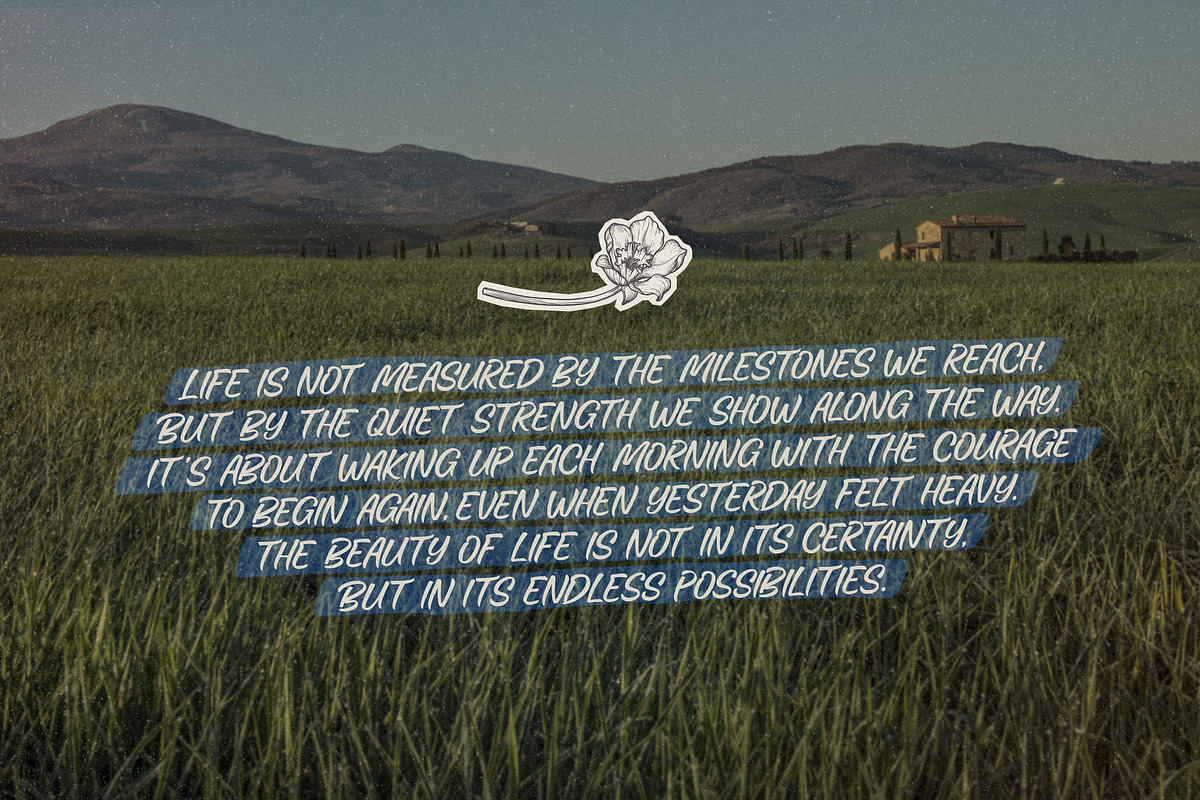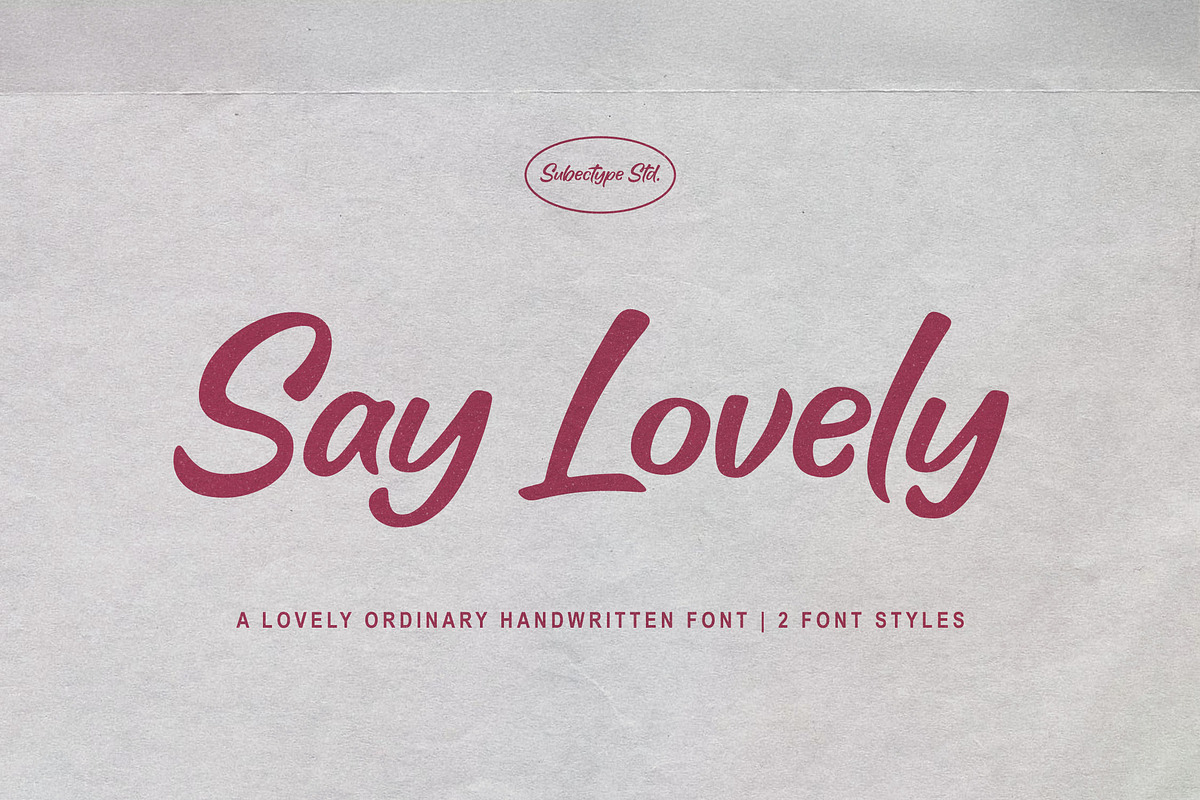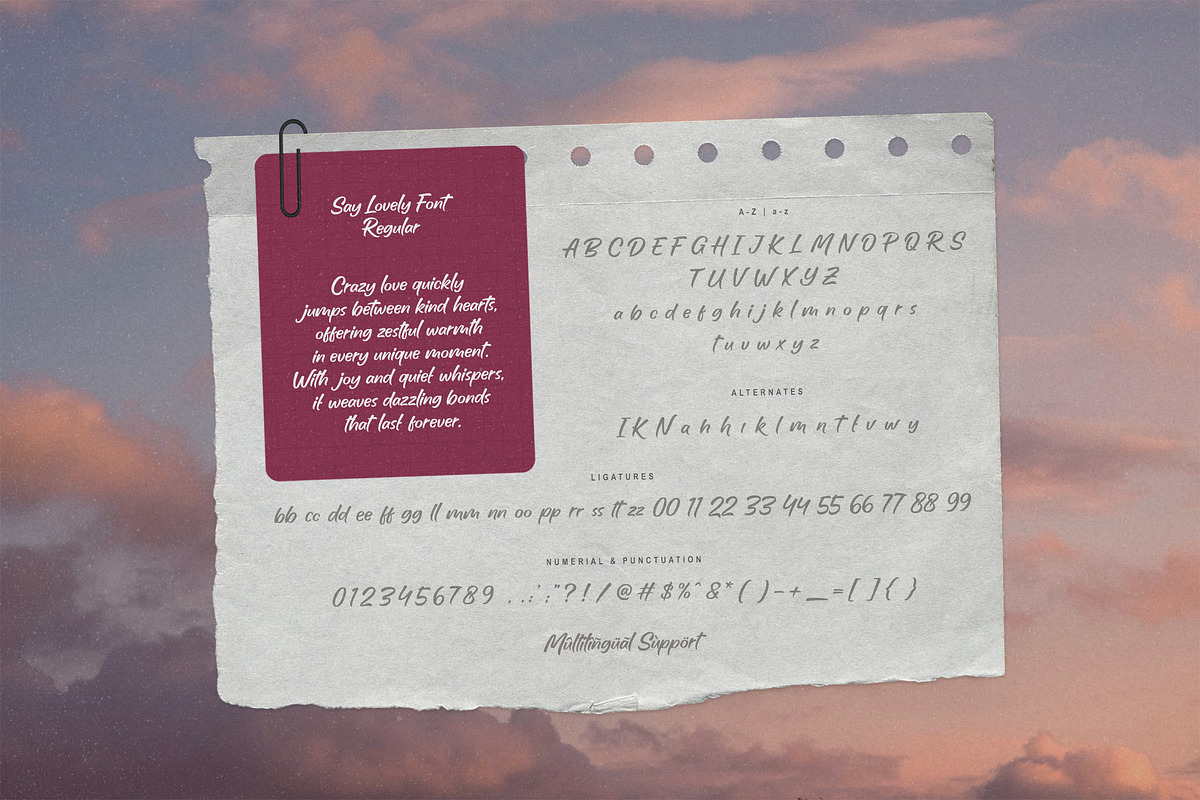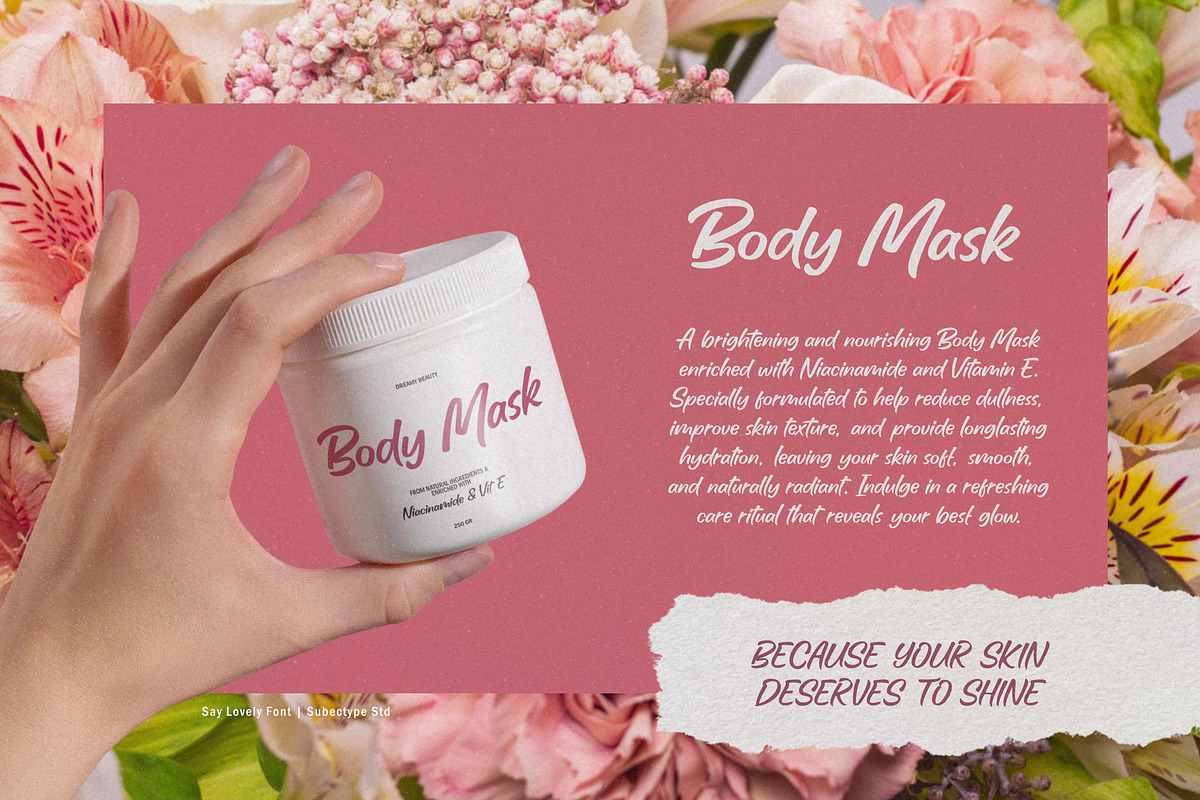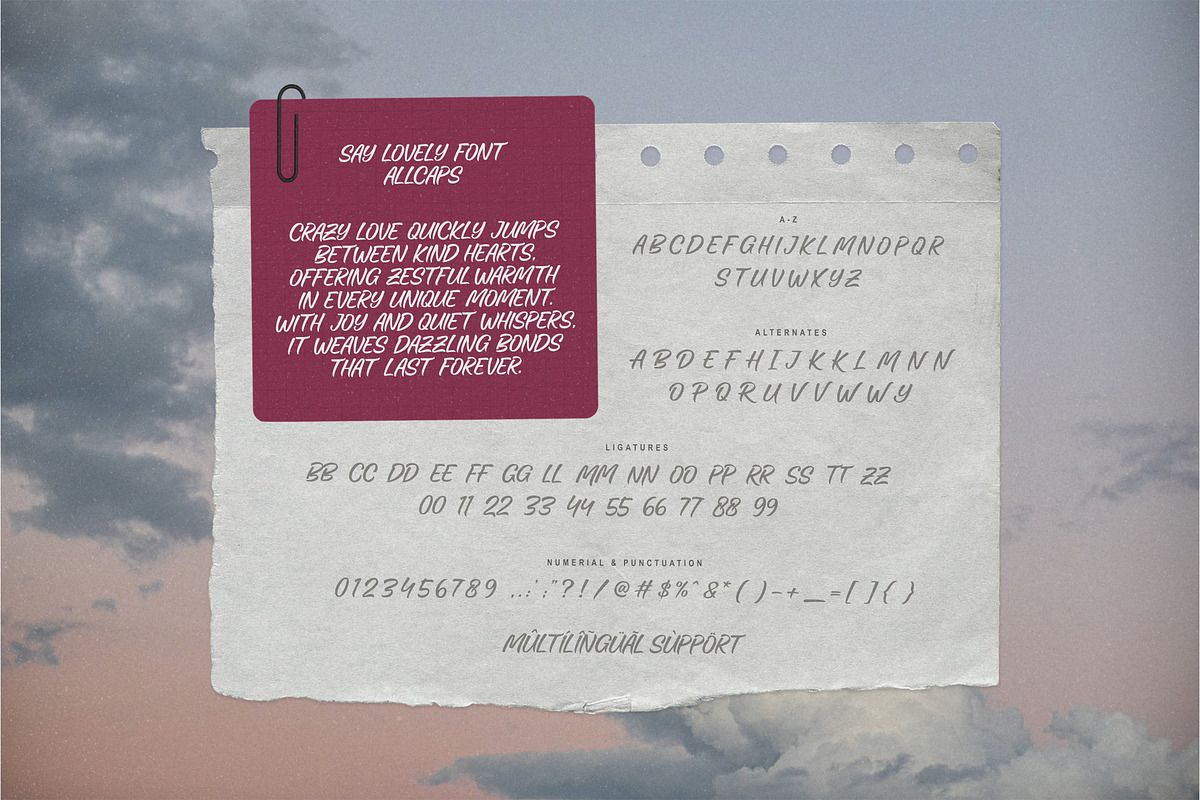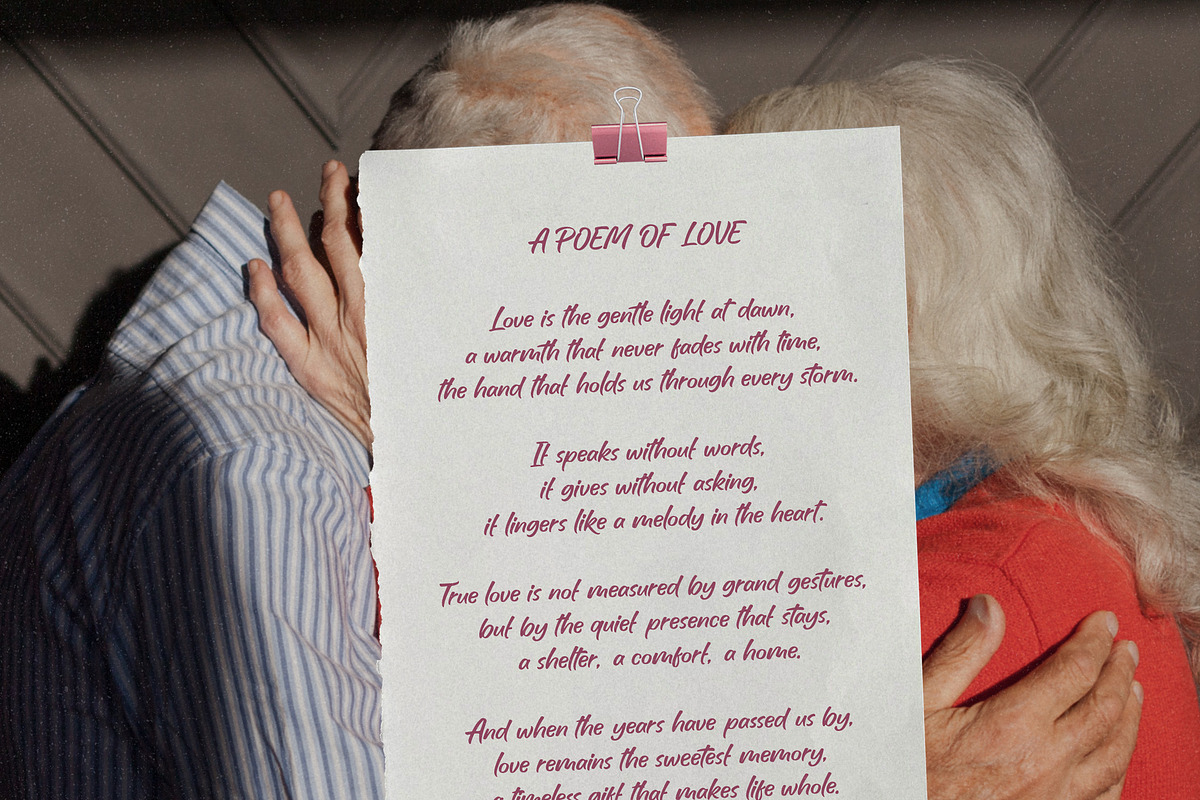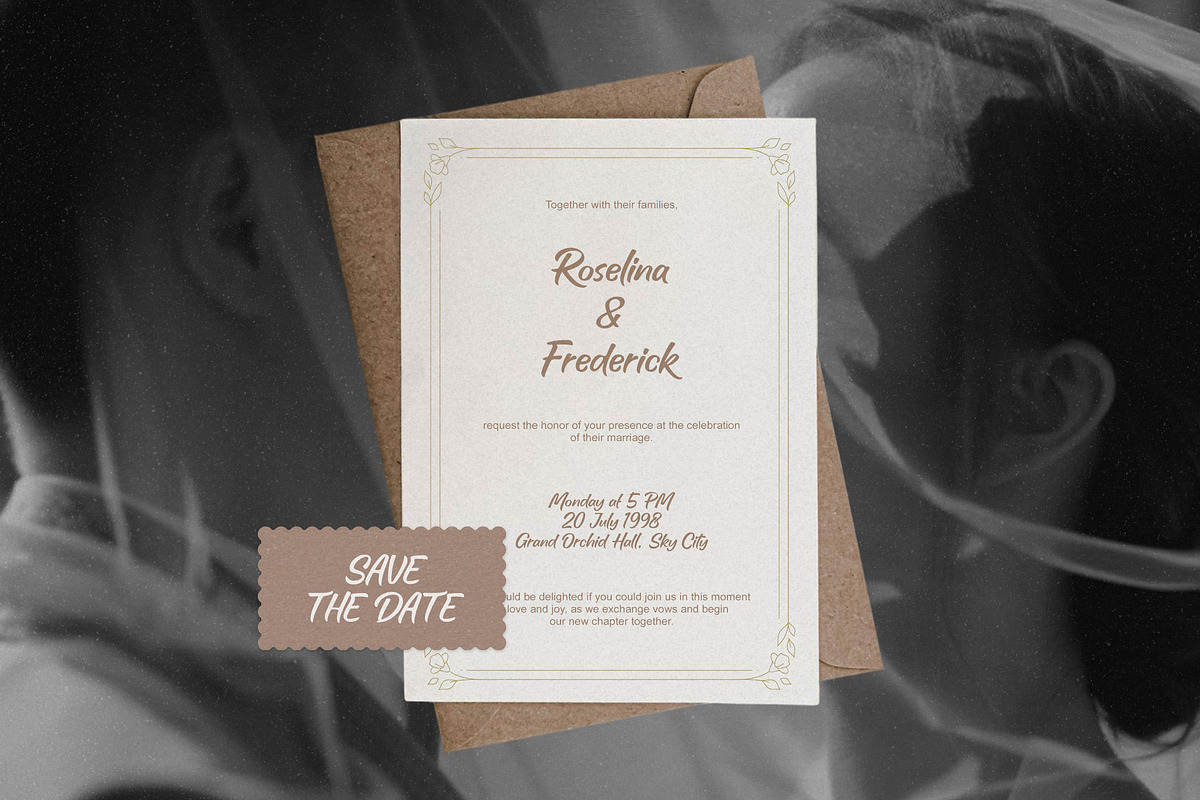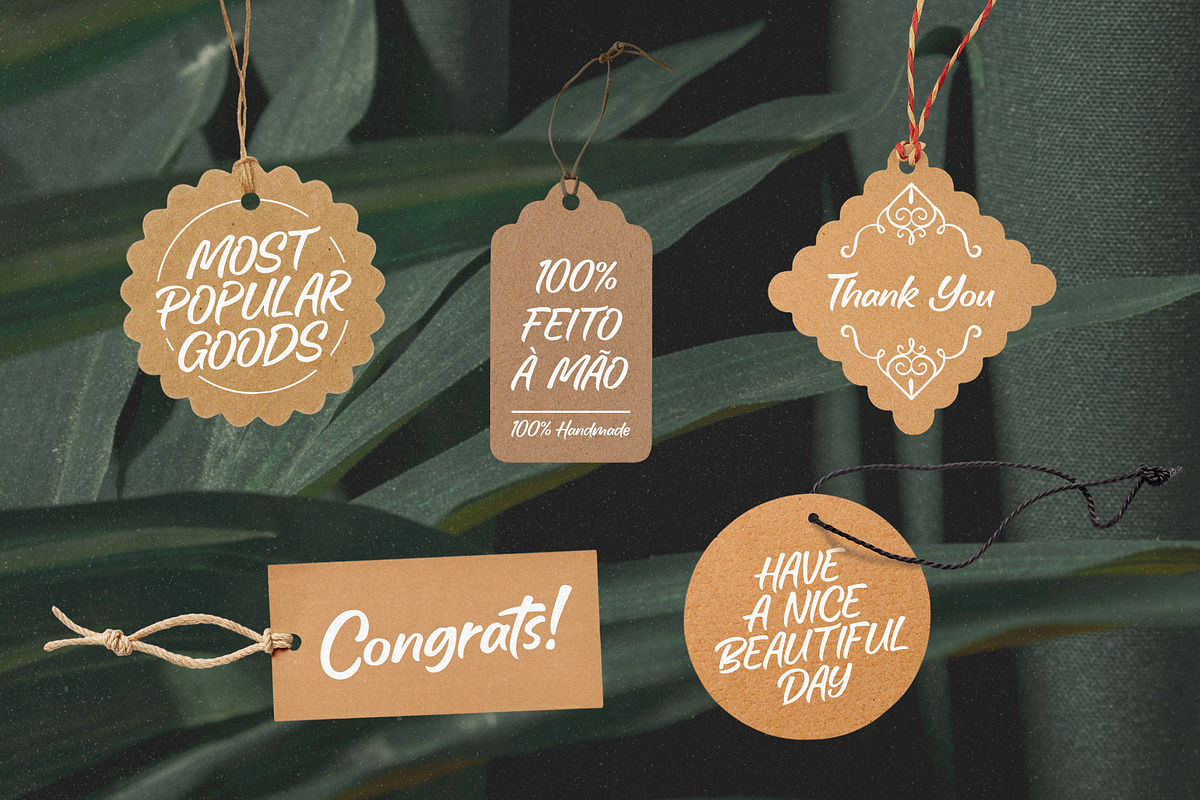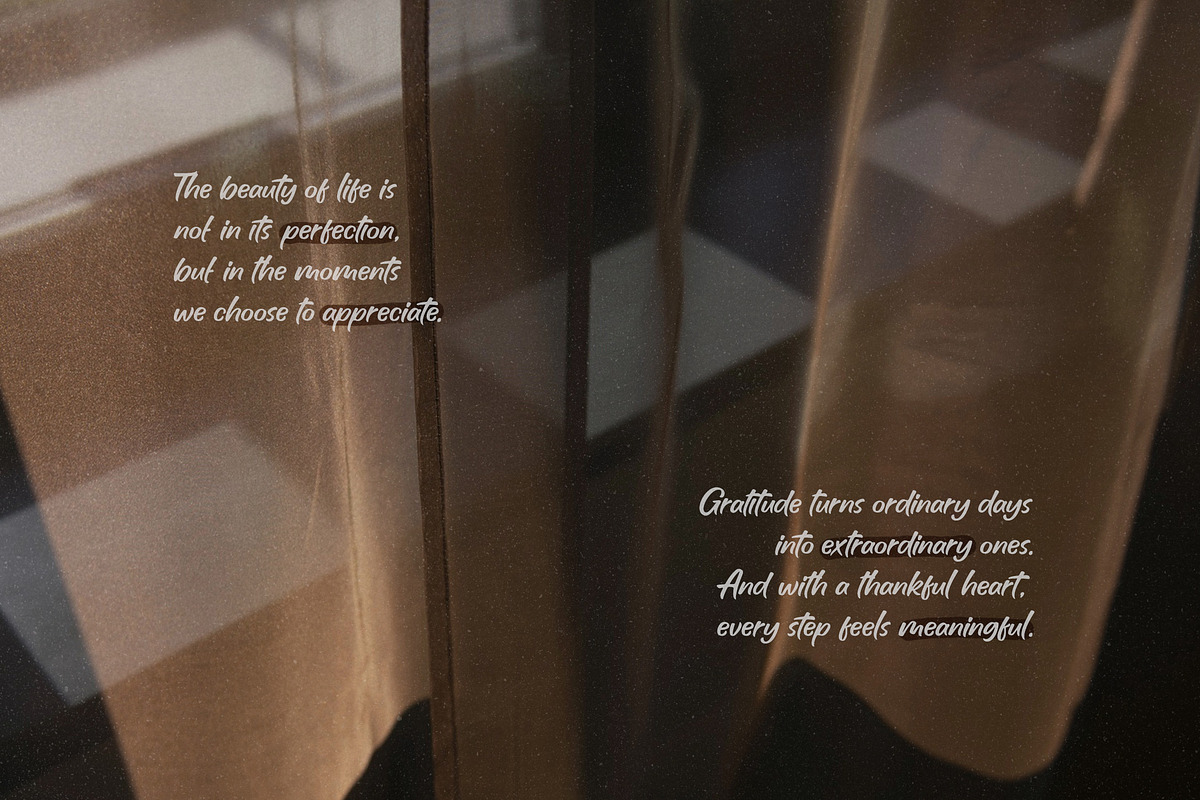
Say Lovely - Handwritten Script Font
"Introducing Saylovely - Duo font styles" a bold script font that brings the charm of handwritten letters to life. Its casual strokes and playful curves create a fun, approachable vibe, perfect for projects that need a touch of warmth and personality. Lovely and expressive, it’s ideal for logos, quotes, invitations, or anything that deserves a cheerful handwritten look."